Are you looking for a unique gift for the graphic designer in your life? Or someone who loves typography? Are you searching for an unusual Secret Santa gift? Visit the Type Tasting Typography Emporium for a range of items created for font fans young and old. These are all designed by Sarah Hyndman and published by Type Tasting.
Typographic t-shirts
Exclusive Type Tasting t-shirts. Designs range from puns and ampersands to asterisk snowflakes and secret messages hidden in Letraset-inspired designs. The t-shirts are 100% organic cotton printed by Teemill in the UK in a renewable energy-powered factory. Worldwide shipping is available.
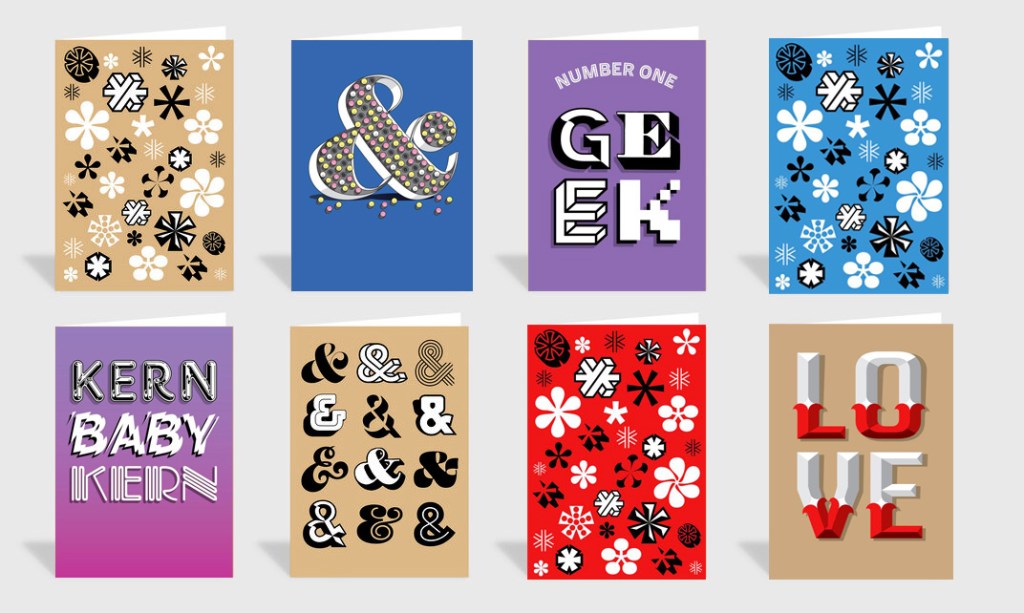
Typographic greetings cards
Send an exclusive typetastic card. The ampersand and asterisk cards are the current top sellers. Printed in the UK by Thortful with worldwide shipping on premium quality paper stock with a premium grey GF Smith embossed envelope. “Everything is lovely about them. Even the envelopes” Theo.
Typographic colouring books
Passive Aggressive Fonts
Typographic colouring book for adults
By Sarah Hyndman
Colour your fonting frustrations away. Vent your vexations colouring a confrontation of snarky fonts. Exorcise your exasperations as you creativity the heck out of an antagonism of tetchy typefaces. Scribble your way through a clamour of passive aggressive phrases. Including those classic fonts you love to hate.
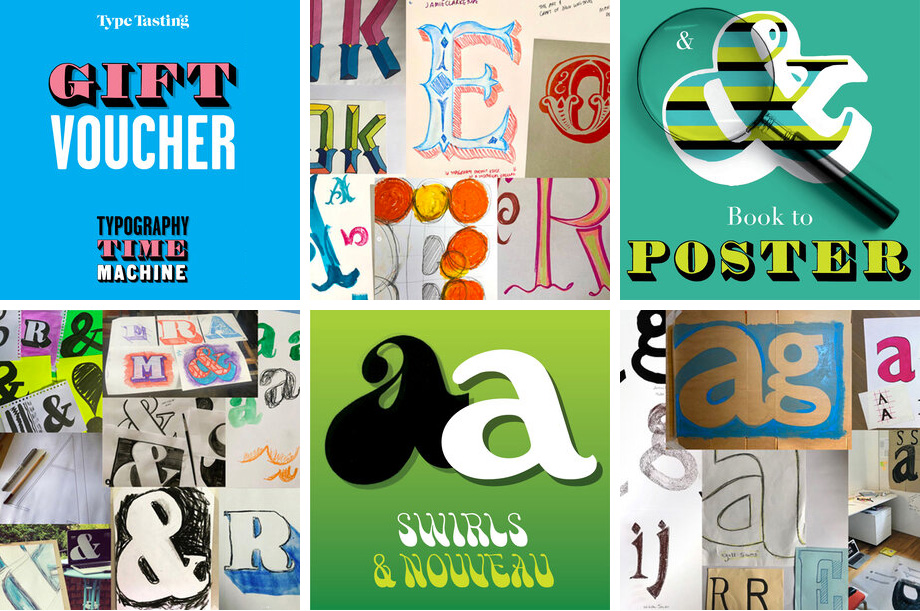
Typography time machine gift vouchers
Draw & learn online workshop series
Curious to know why there are so many typefaces? Intrigued by where the different styles come from? Fonts are like magical time machines. They transport you to different times and places. They conjure up stories of decadence, revolutions, transformation and ingenuity.
Fontosaurs, when dinosaur fonts roamed the earth
T-shirts, birthday cards and colouring books for the young dinosaur fans in your life. They’ll learn to recognise the letters in each dinosaur’s name with fonts matched to the personality of the each prehistoric creature. Fontosaurs evolved from a typographic collaboration between Sarah and her then 12-year-old nephew Eddie.
Books and zines
From the bestselling Why Fonts Matter, the Type Dating Card Game to zines that accompany published scientific studies.